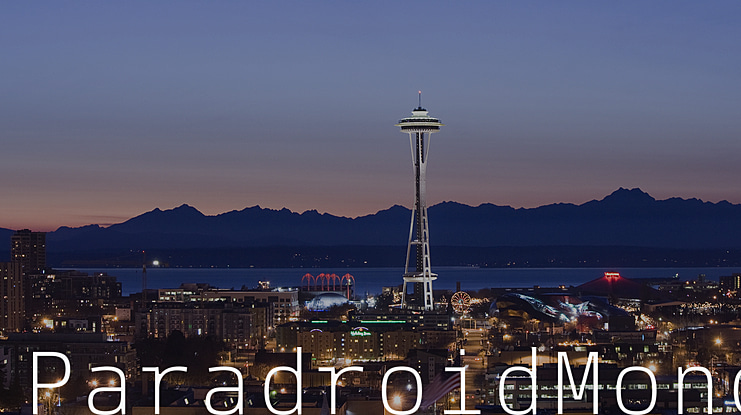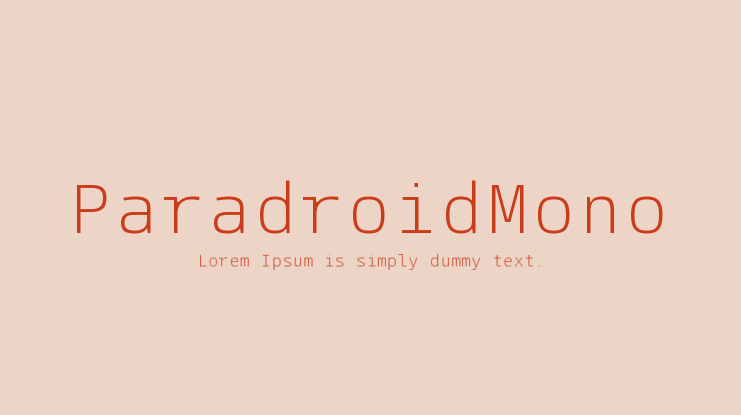
ParadroidMono Font
A pragmatic mono-spaced sans-serif which sits in the centre on the grotesque to geometric style spectrum. Equal measures of both letterforms create a neutral type family that is modern, functional, and easy to read without being too distractive.
Details include 750 characters with an alternative lowercase a and g, twelve variations of numerals with stylistic zero's, Opentype features inferiors, superiors, fractions, case-sensitive punctuation, and language support covering Western, South and Central Europe.